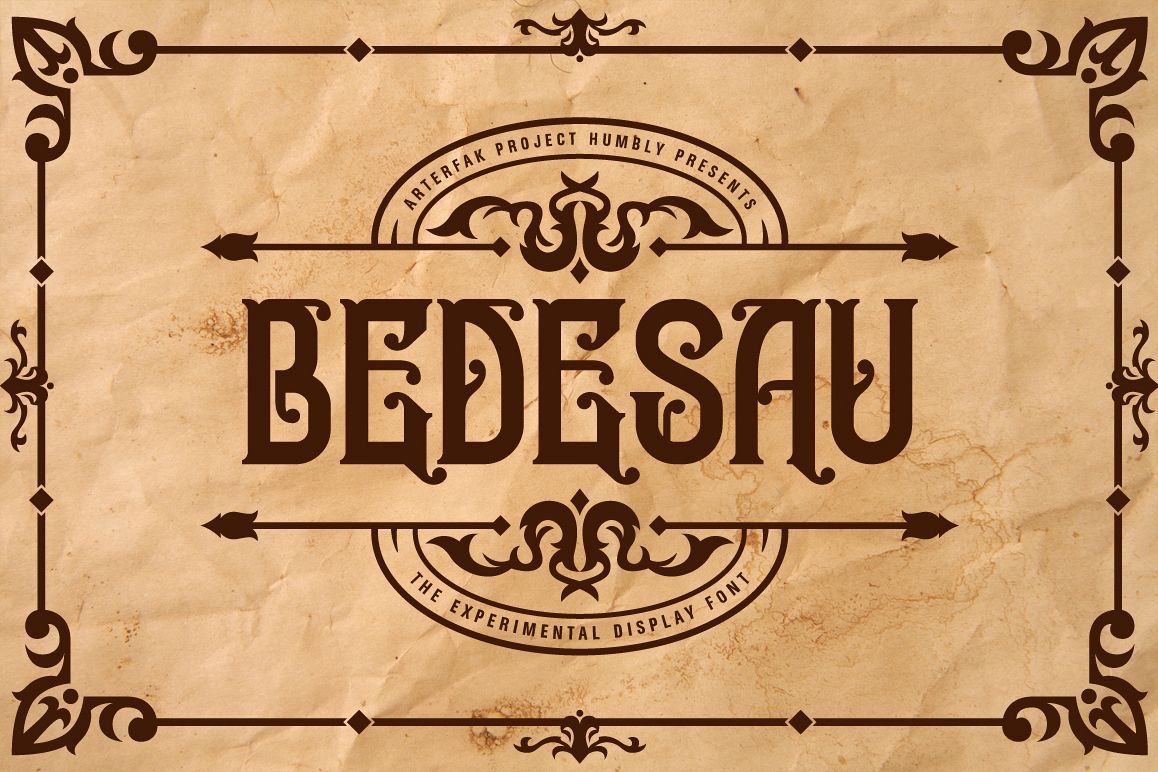
Bedesau Typeface
Humbly presents to you, BEDESAU Typeface The experimental font which inspired from art nouveau movement. Looks good for your display, subheadline & bodytext, tested on Adobe Illustrator, Photoshop, CorelDraw, InDesign and etc. Available in shadow style which recommended for your headline.